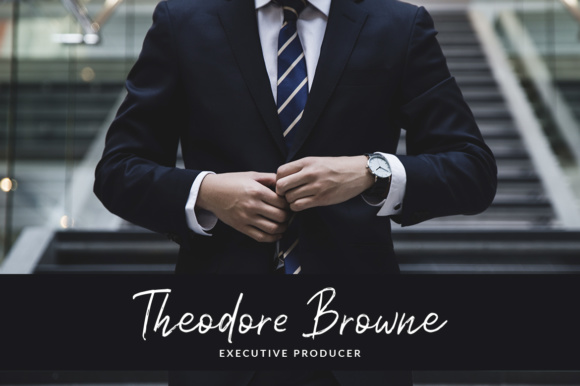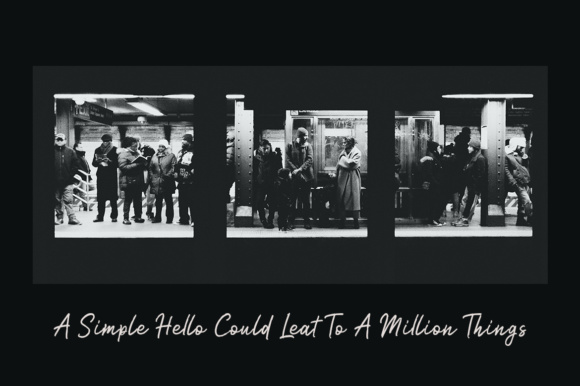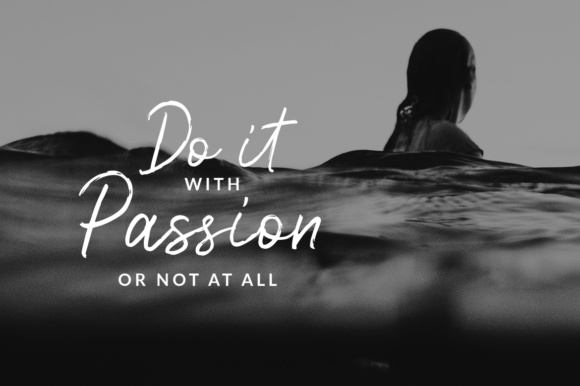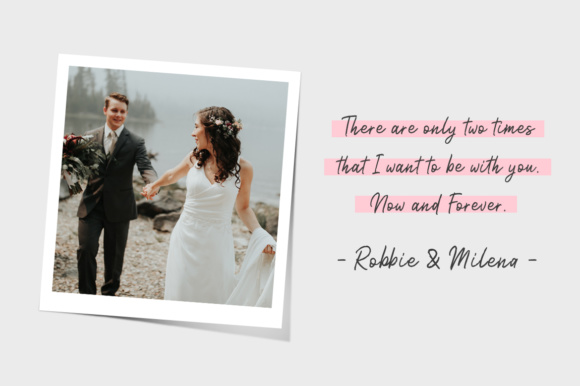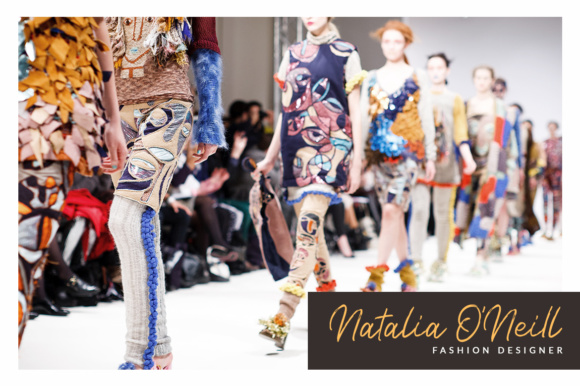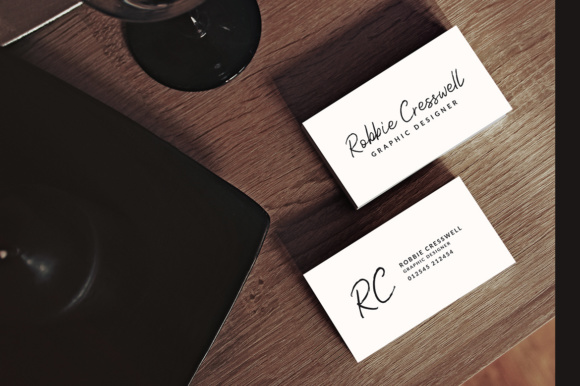
Introduction to Nicollast Font
As a designer, there’s nothing quite like the thrill of discovering a new, high-quality font that perfectly captures the essence of your creative project. For me, that moment came when I stumbled upon the Nicollast Font – a stunning hand-written brush font that adds a touch of natural elegance to any design.
With its unique dry brush effect, the Nicollast Font is a design resource like no other. Whether you’re working on a logo, a brochure, or a website, this font is sure to elevate your creative vision. And the best part? It’s available for free download, making it an accessible addition to your design toolkit.
What sets the Nicollast Font apart is its versatility. Use it to add a touch of whimsy to a transparent background, or let its bold lines take center stage. Whatever your design style, this font is sure to be a valuable asset in your creative arsenal.
Key Features of Nicollast Font
- High-quality design: Nicollast Font is a carefully crafted font suitable for various creative projects.
- Unique style: Nicollast Font boasts a distinctive, modern aesthetic that sets it apart from other fonts in its category.
Honest Review: Nicollast Font
I recently came across the Nicollast Font and was excited to give it a try for my next creative project. As a designer, I’m always on the lookout for high quality fonts that can add a unique touch to my designs. Fortunately, Nicollast Font did not disappoint.
However, I did encounter a few limitations with the Nicollast Font.
- ⚠️ Additionally, the font may not be suitable for very large or complex designs, as it can become pixelated or difficult to read.
Overall, I’m impressed with the Nicollast Font as a design resource. While it has its limitations, it’s a great option for designers who want a high quality, free download font for their creative projects.
The Nicollast Font is commonly used in a variety of creative projects, including social media graphics, posters, presentations, and documents. It’s a great choice for designers looking for a high-quality and versatile design resource.